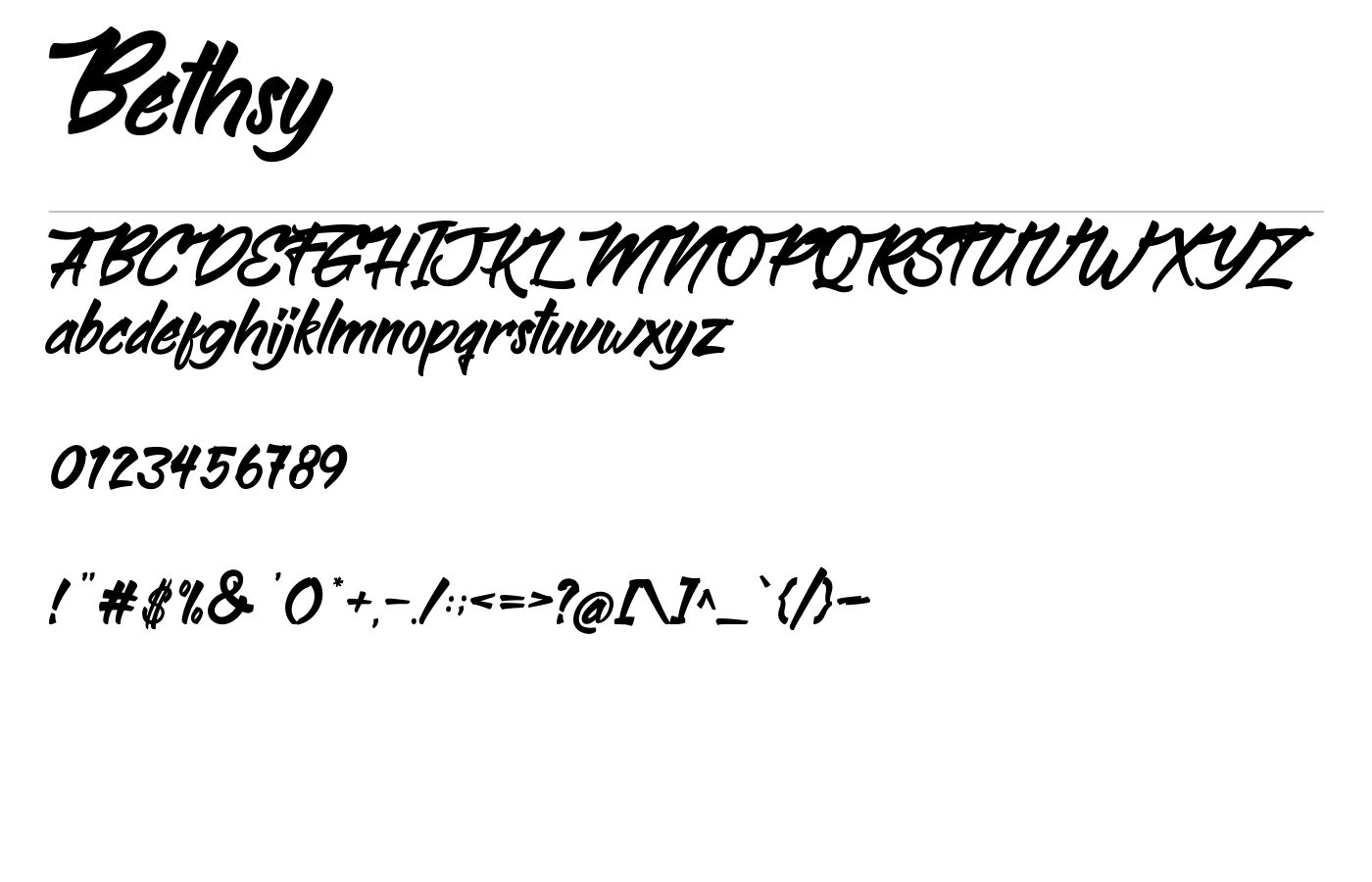
Bethsy is a bold, energetic script font with a handwritten style that features smooth, flowing strokes and moderate contrast. Its dynamic, slightly italicized letterforms convey a friendly and modern feel, making it ideal for creative branding, logos, and eye-catching headlines that want to express personality and warmth. This font works well in projects seeking a casual yet stylish vibe, such as fashion, lifestyle, or artistic designs.
Bethsy Font
About Bethsy Font
| Font family | Bethsy Font |
| Designer | Suandana I Pande Made |